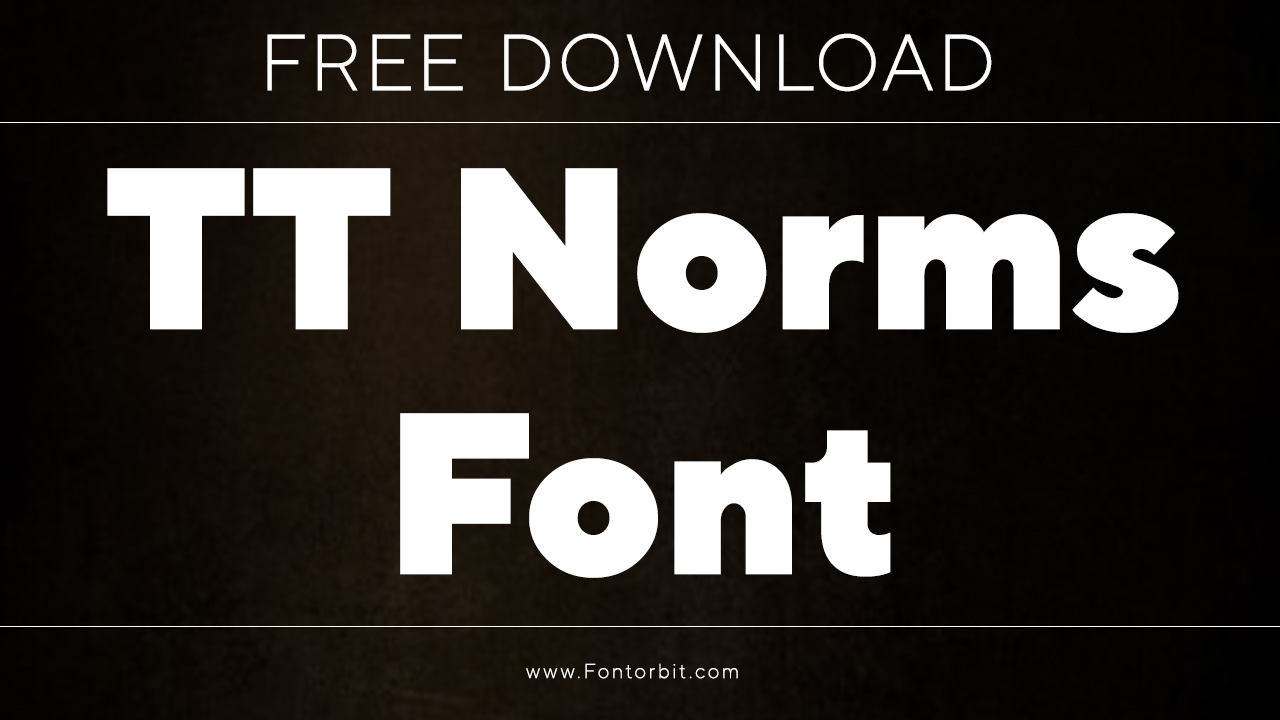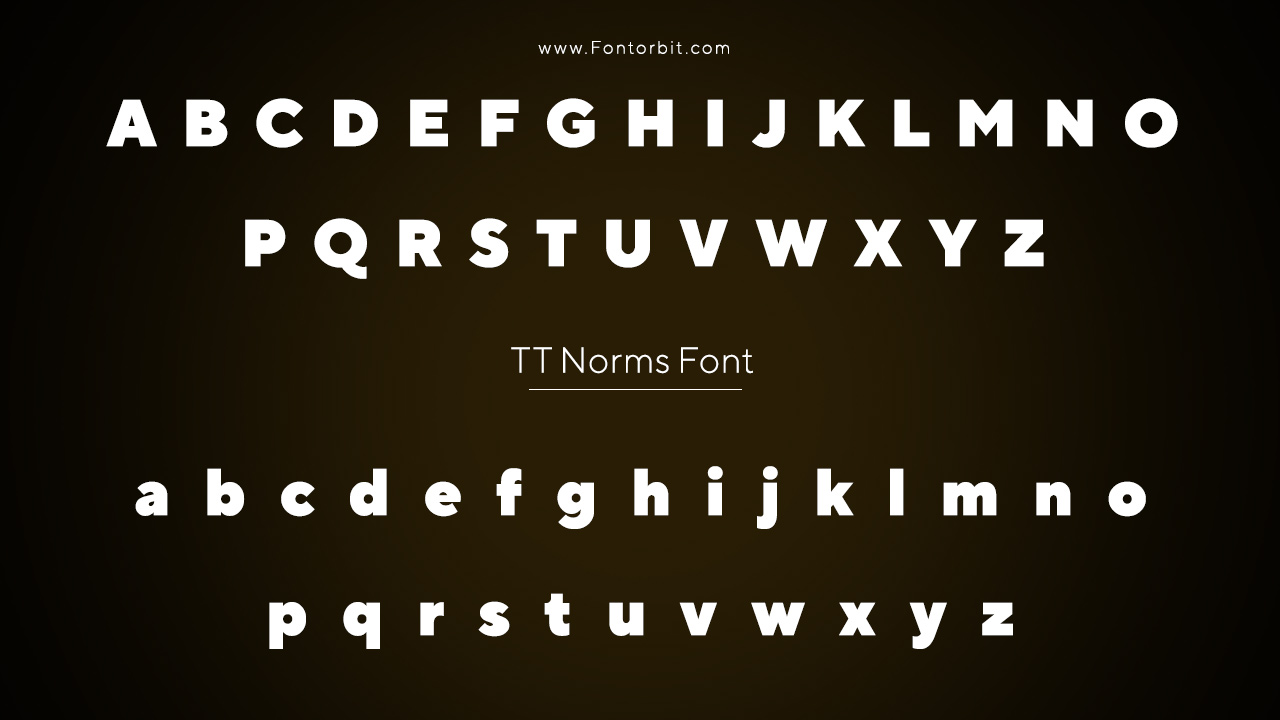
TT Norms is a modern, geometric sans-serif typeface designed by Ivan Gladkikh, Antonina Zhulkova, Pavel Emelyanov, and Marina Khodak at Type studio.
It was first released in May 2017 and quickly became a favorite in the font industry. With its versatile design, it offers multiple styles, weights, and language support, making it a perfect choice for a wide range of projects, from branding to web design. TT Norms Pro, the extended version, provides even more features, including alternate glyphs and expanded character sets.
- TT Norms is a geometric sans-serif font.
- It offers a wide variety of font weights and styles.
- The TT Norms font family supports 280+ languages, including extended Cyrillic characters.
- TT Norms Pro includes special characters, mathematical symbols, and more.
- It’s perfect for both digital and print applications.
| Name | TT Norms Font |
| Style | Geometric Sans-Serif |
| Designer | Ivan Gladkikh, Antonina Zhulkova, Pavel Emelyanov, Marina Khodak |
| Type | Sans-Serif Fonts |
TT Norms Italic is the italicized version of TT Norms, available in multiple weights such as Regular, Medium, and Bold.
Yes, TT Norms is commonly used for branding and logo designs due to its modern and professional appearance.
TT Norms supports 280+ languages, including extended Cyrillic, Latin, and Greek character sets.
TT Norms Pro Mono is a monospaced version of TT Norms, designed for typewriter-like aesthetics.